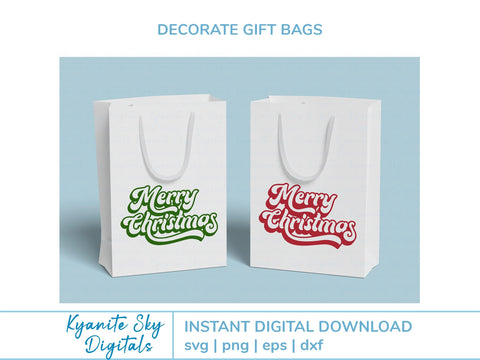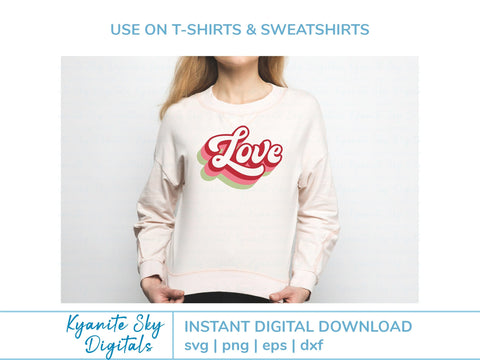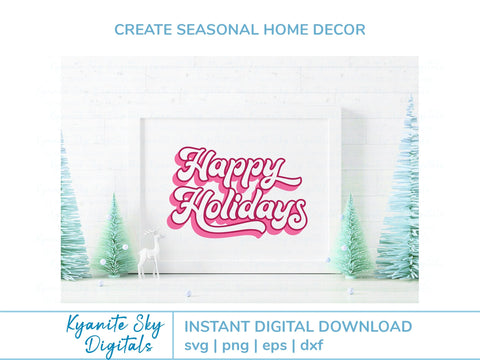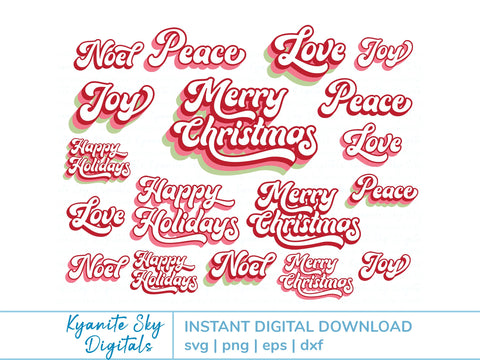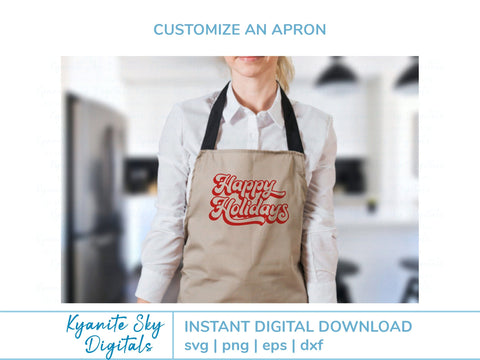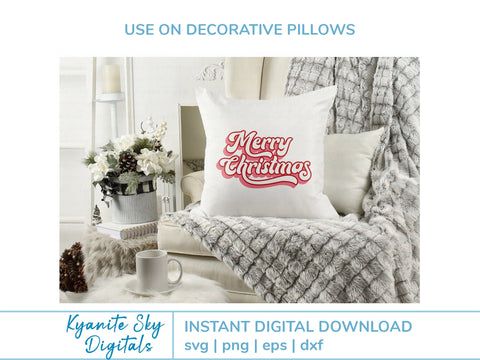
Christmas Winter Holiday Titles SVG Bundle
"Merry Christmas", "Happy Holidays", "Love", "Peace", "Joy", and "Noel" in fun vintage retro style lettering with shadows. Each title comes in several variations as shown. Great for holiday decor, Christmas pillow, framed wall art, Christmas office decor, customized gift bag or tote, tent card sign for table, and more.